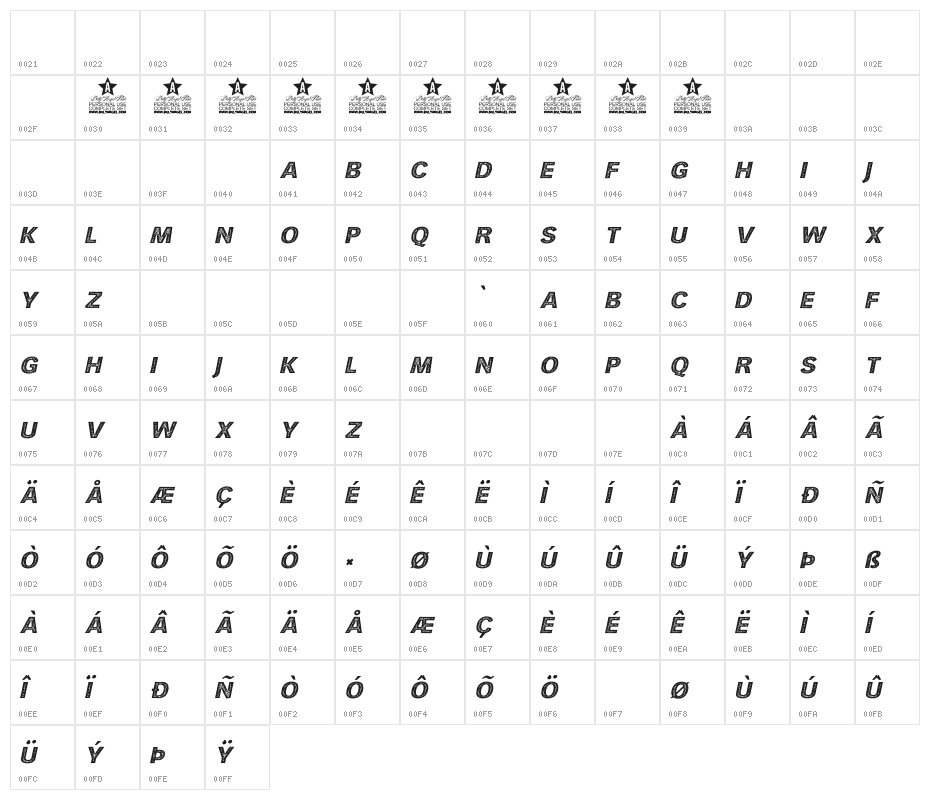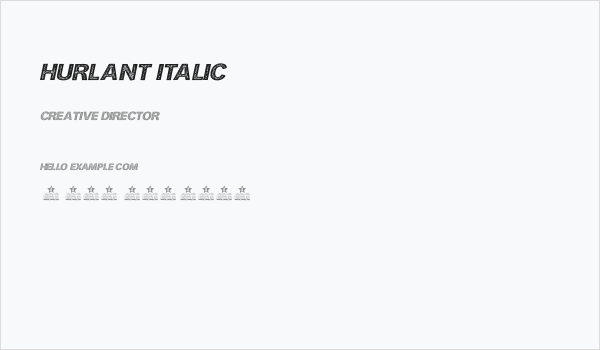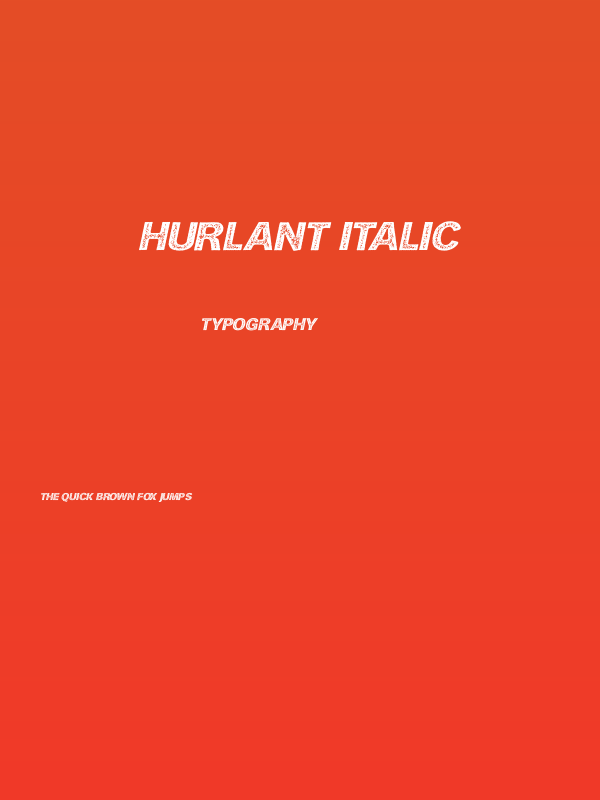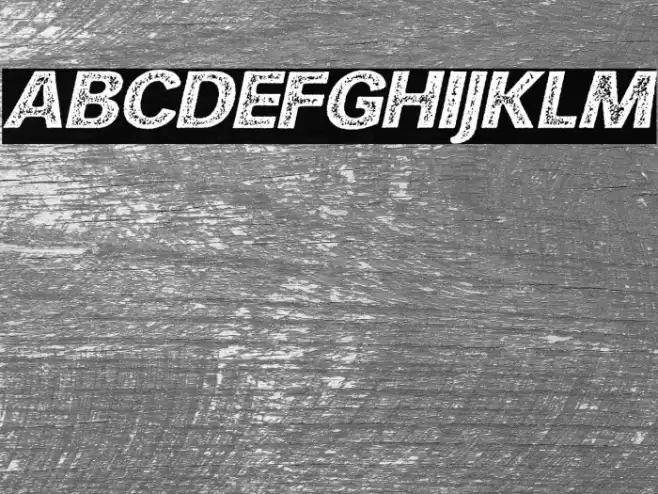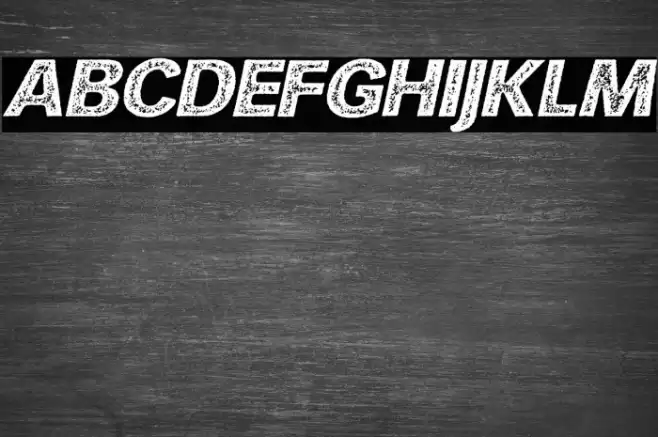
HURLANT ITALIC Font
HURLANT ITALIC Description
This font features a bold, italicized style with a distressed texture that gives it a rugged, vintage appearance. The uppercase letters are prominently displayed with a slanted orientation, adding dynamism and movement to the text. The texture within each character creates a worn, grunge effect, making it ideal for designs that require a touch of edginess or a retro feel. The font maintains consistent weight across all characters, ensuring readability while still delivering a strong visual impact. Its unique style makes it suitable for creative projects that aim to stand out.
| Proposed Projects | Ideal for posters, album covers, branding for edgy or retro-themed products, and any design requiring a standout, textured typeface. |